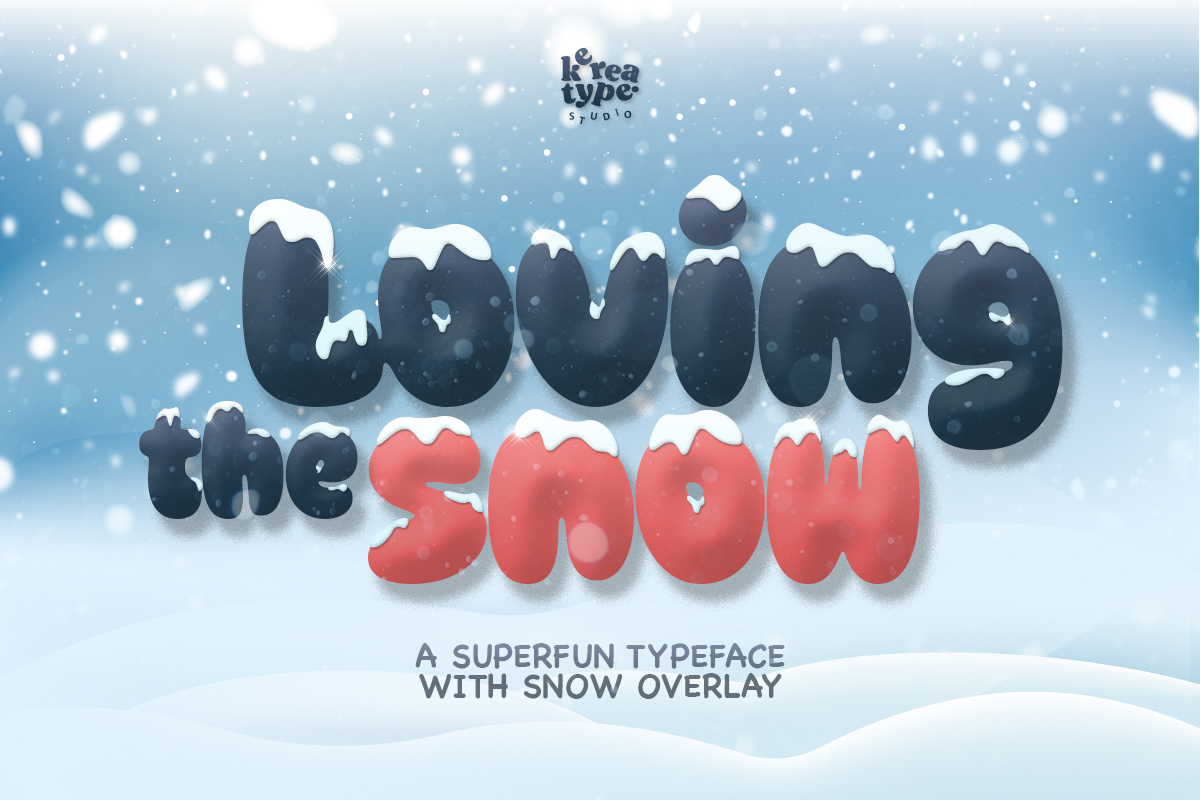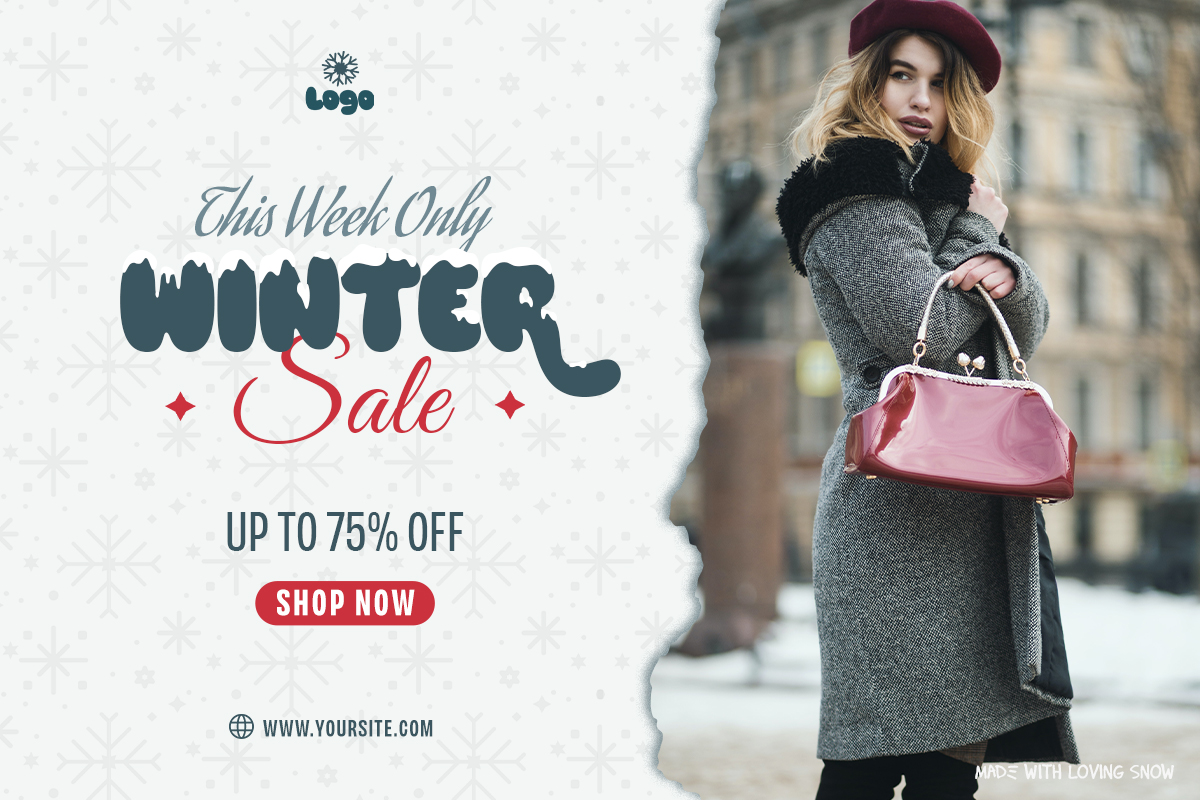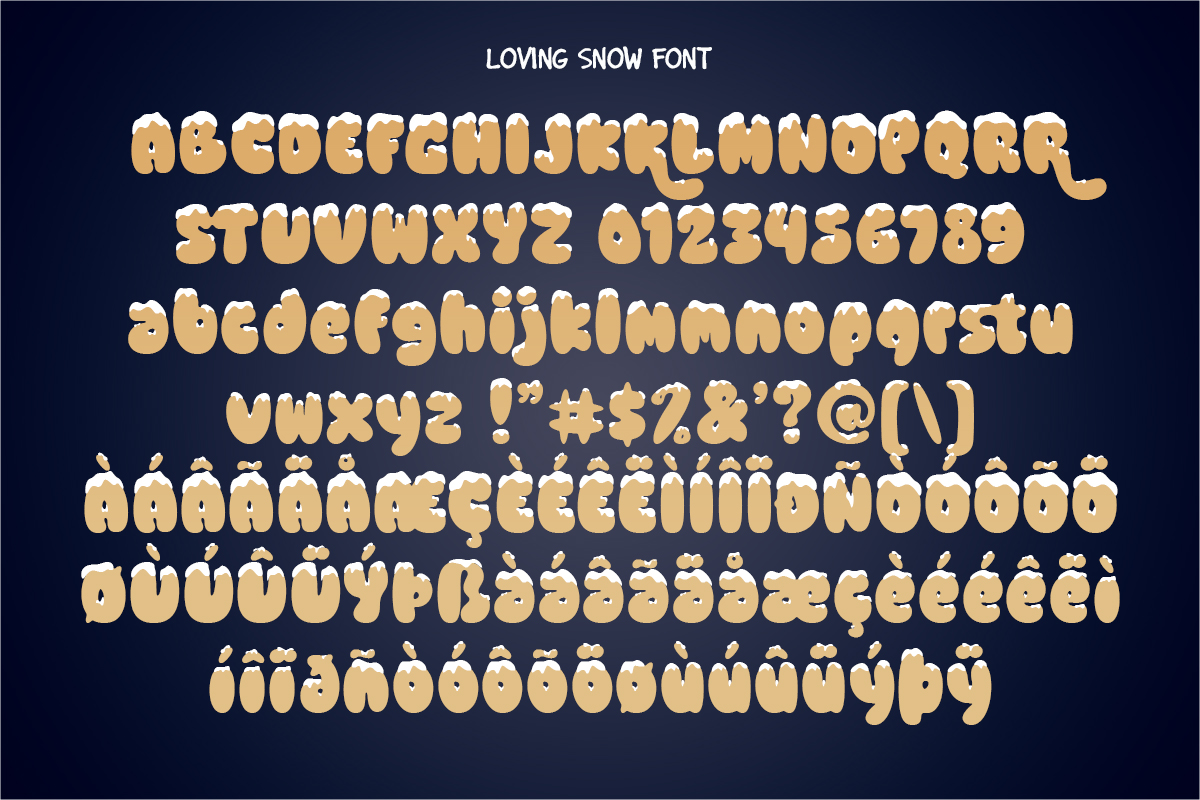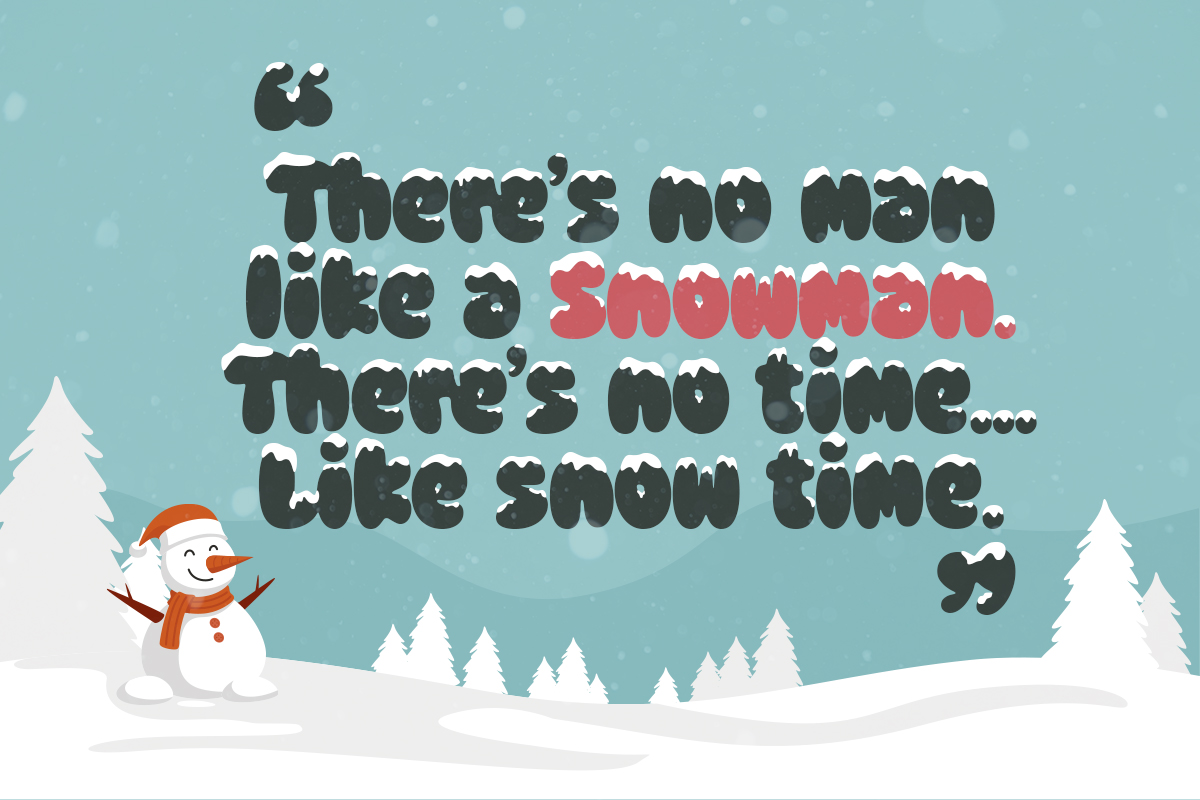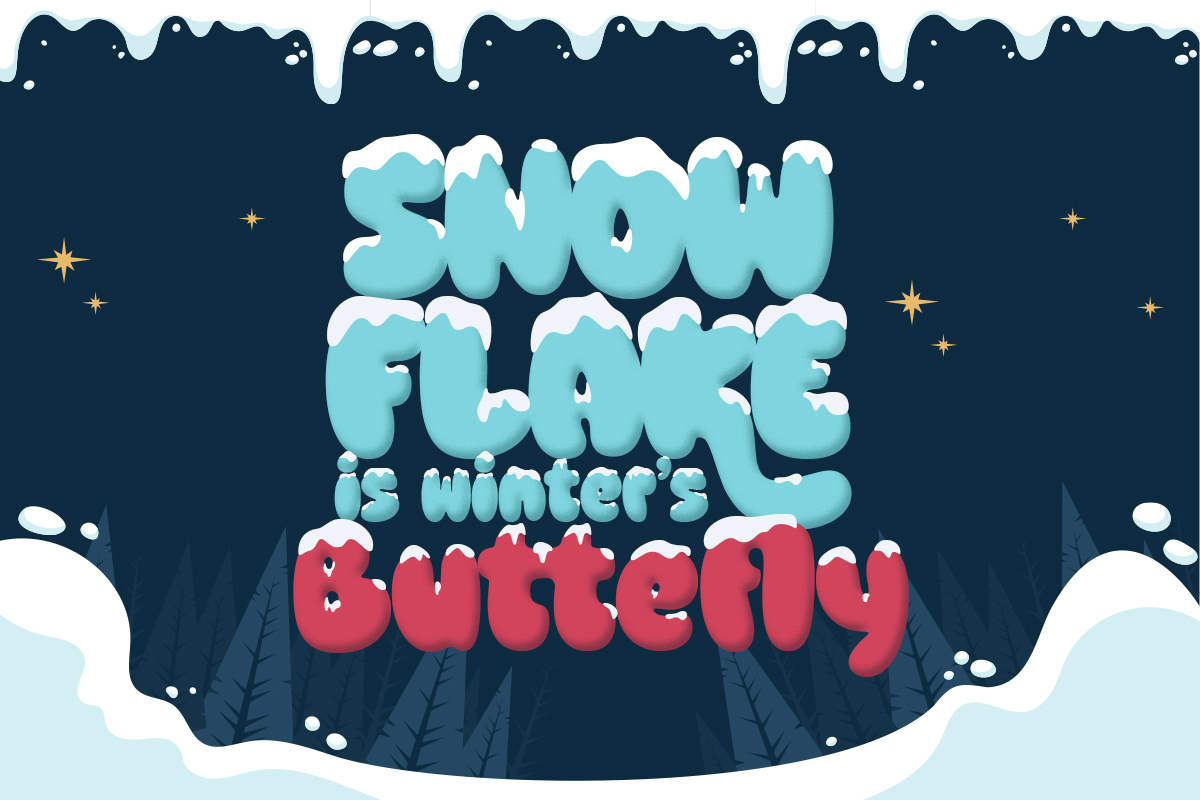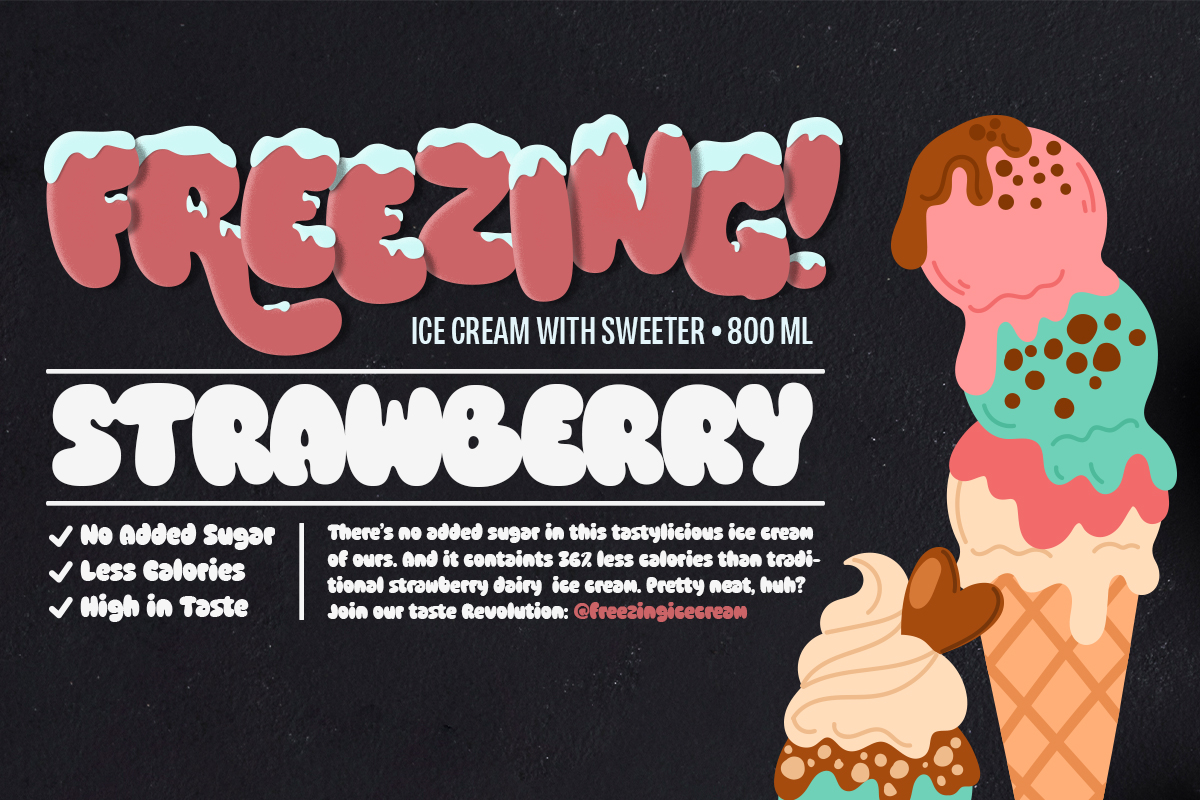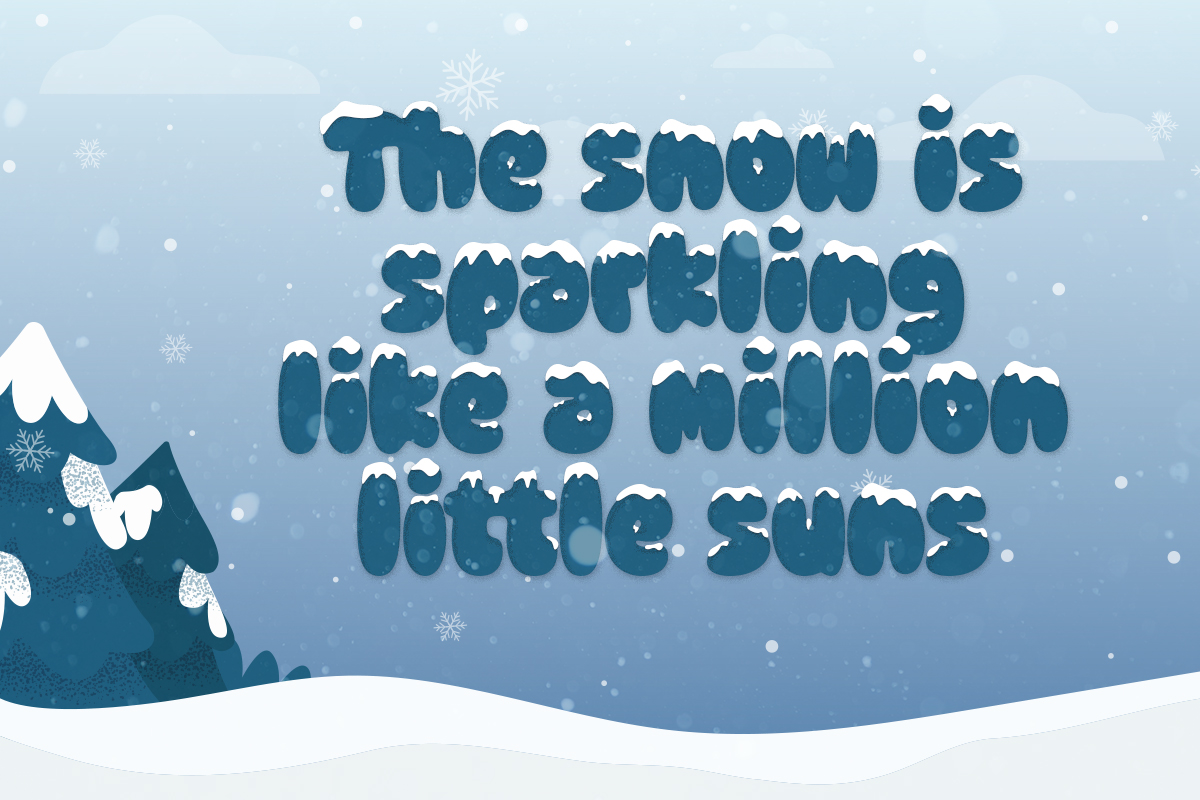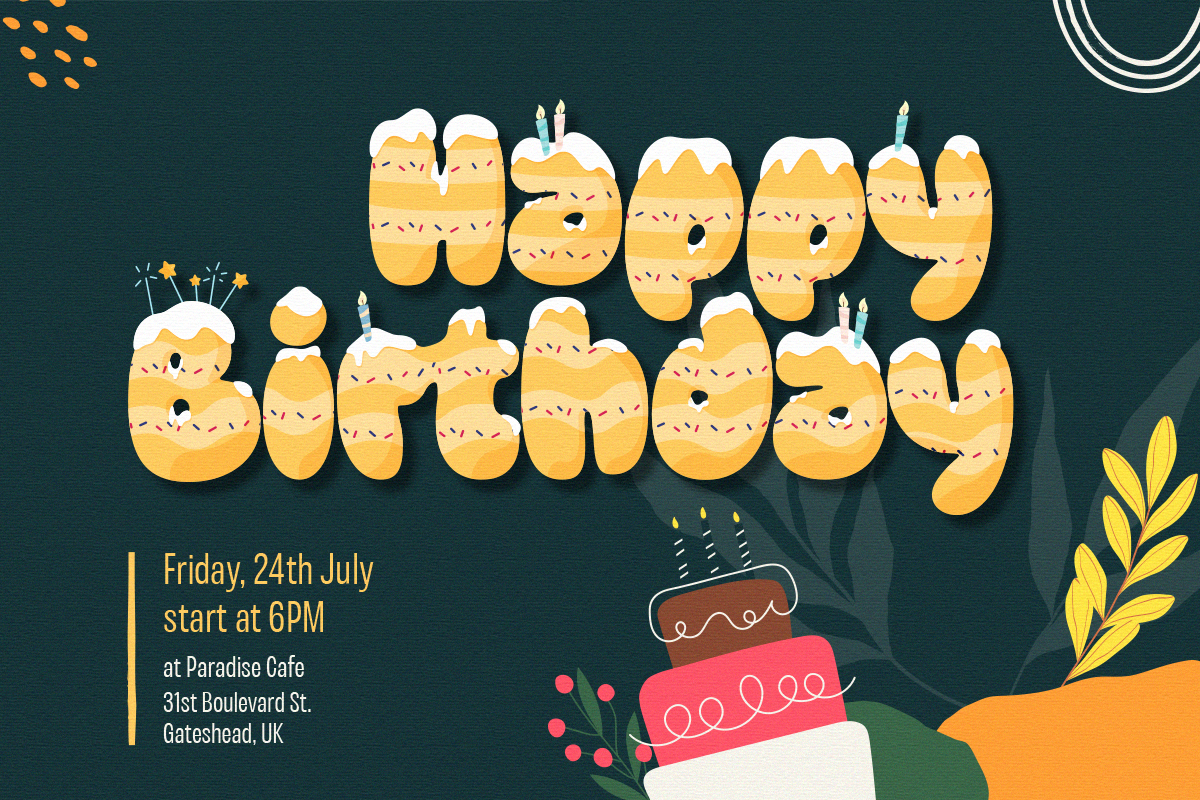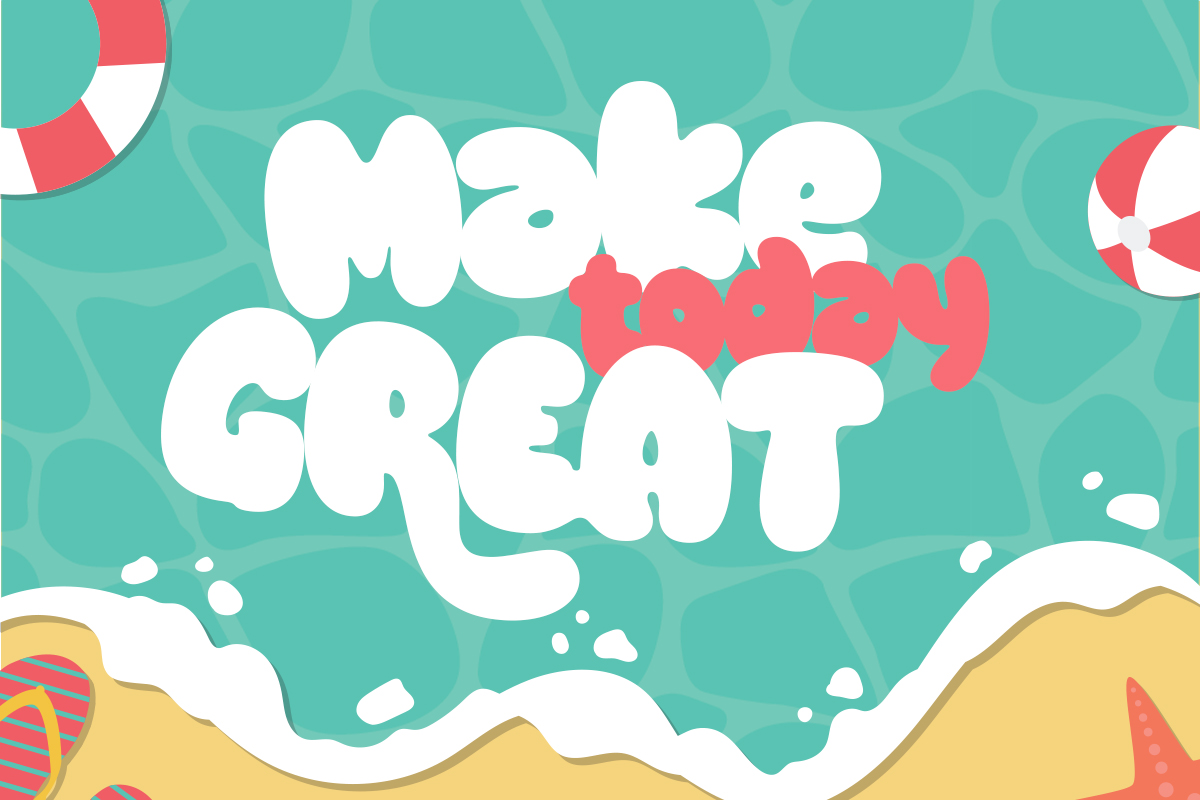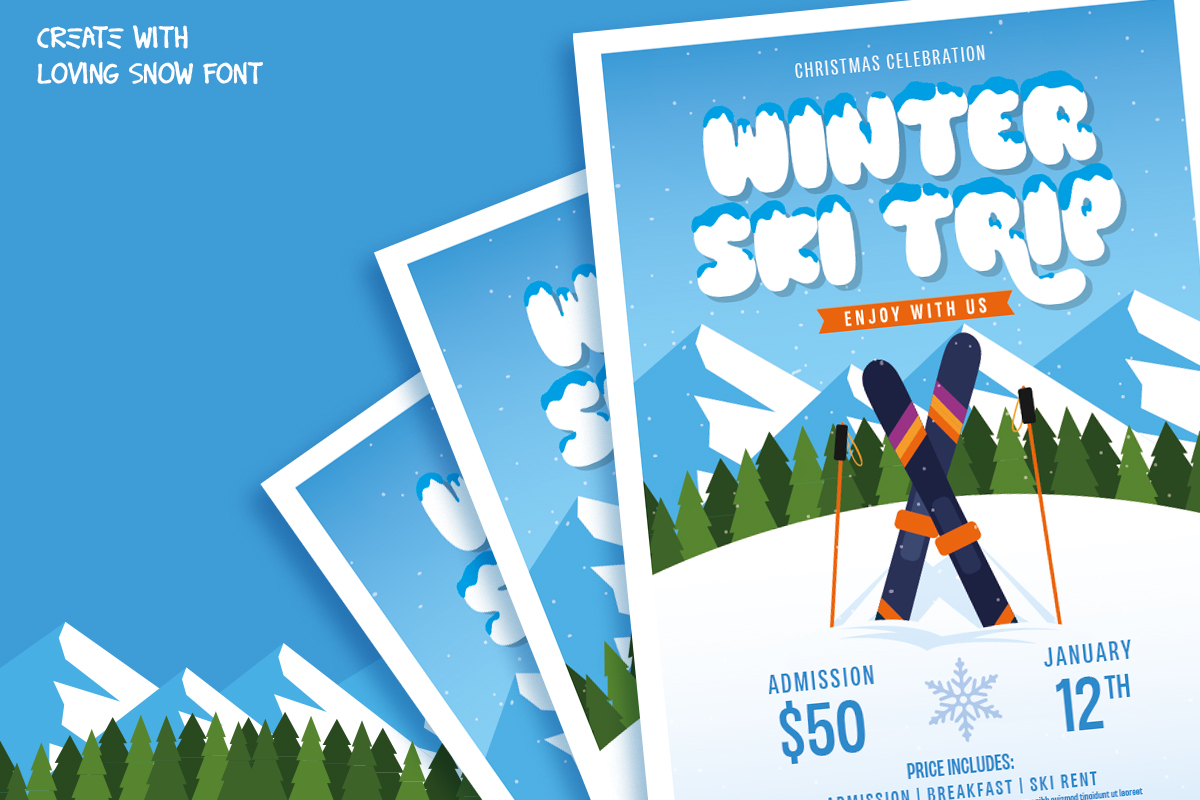
Loving Snow
A Playful Winter Handwritten Font Featuring A Unique Snow-Capped Overlay Effect For Festive Branding And Seasonal Holiday Designs.
Snowy font cover reading "Loving the Snow" in Loving Snow bubble letters, navy and red, with snow caps.
Playful Bold Winter Handwritten Overlay
Loving Snow is a wide, bold, and superfun handwritten font family designed to capture the magic of winter and the warmth of the holidays. This festive typeface features a unique overlay version that creates a charming snow-capped effect, making it perfect for seasonal packaging, holiday greeting cards, and kids’ branding. With playful strokes and a friendly, hand-crafted style, it includes full uppercase and lowercase characters, numerals, and extensive multilingual support. Whether you are creating cheerful social media content or heartwarming seasonal quotes, Loving Snow adds a sparkling touch of joy and whimsical charm to every design.